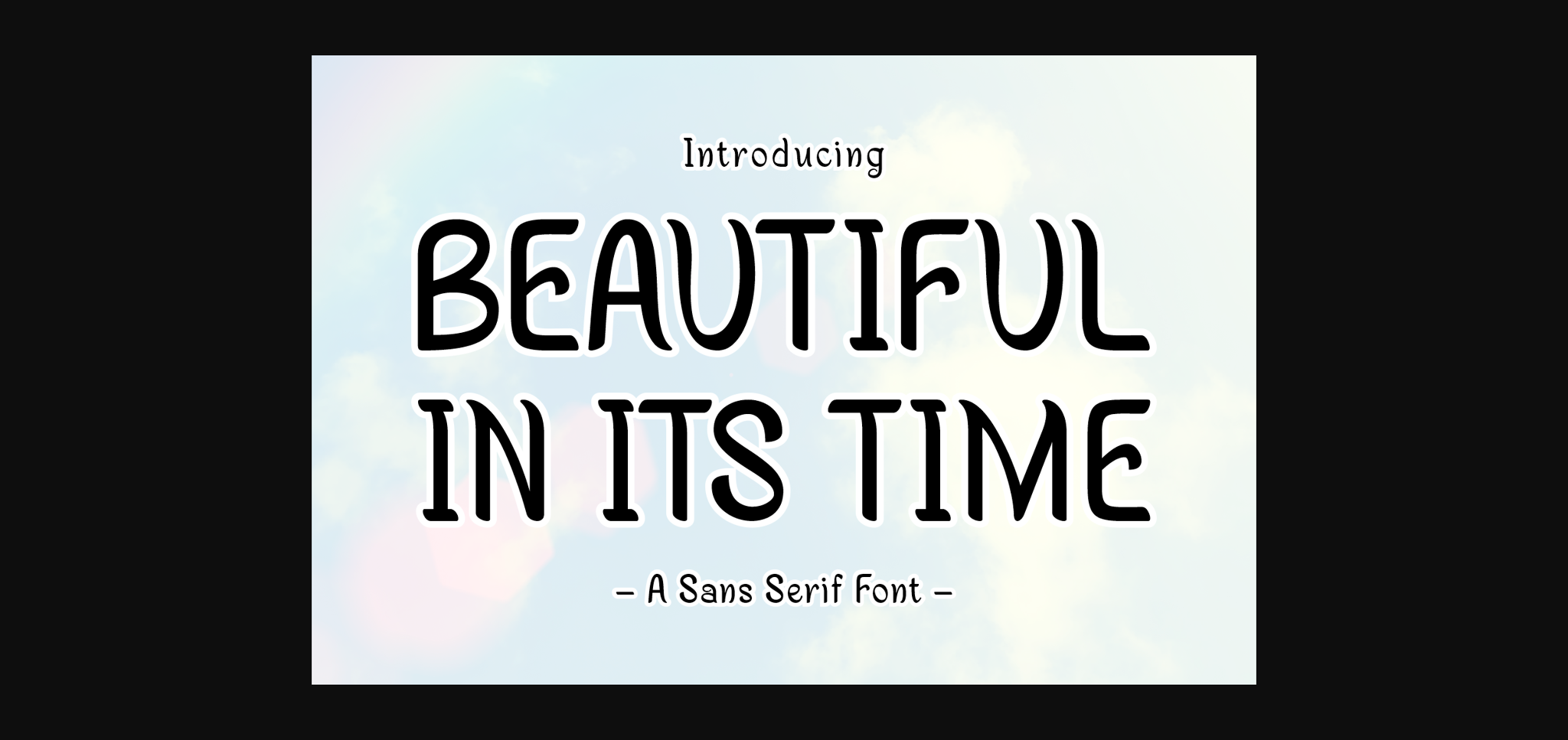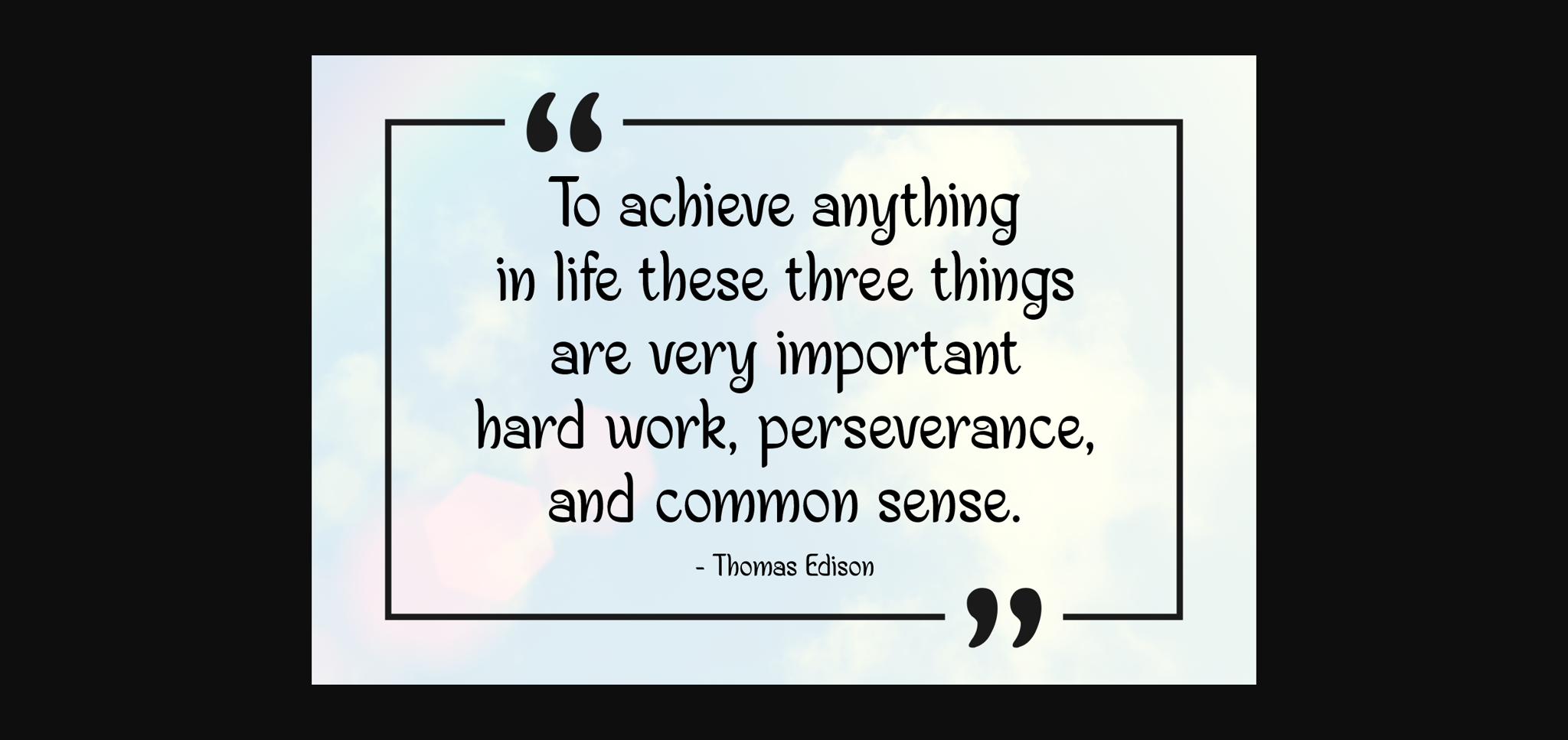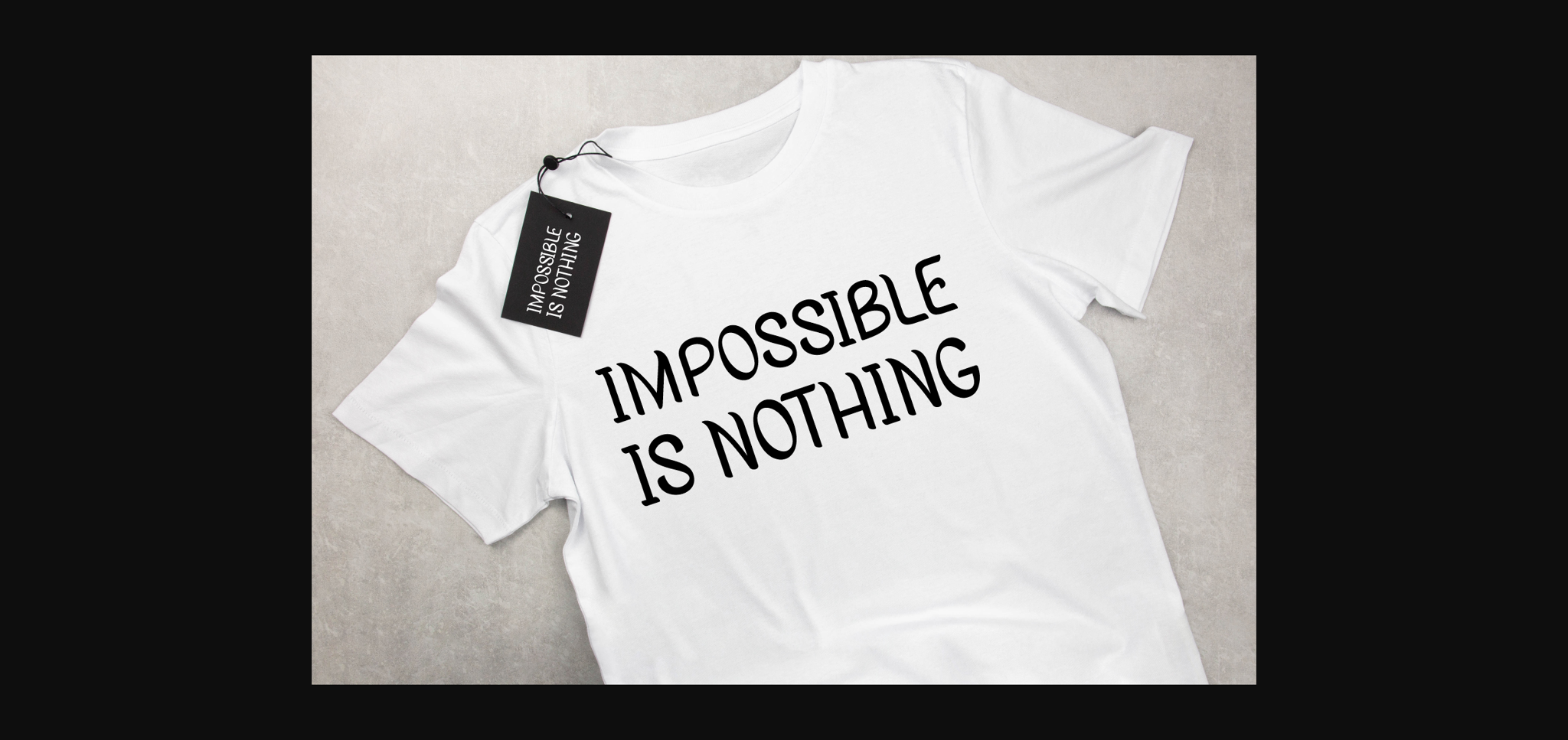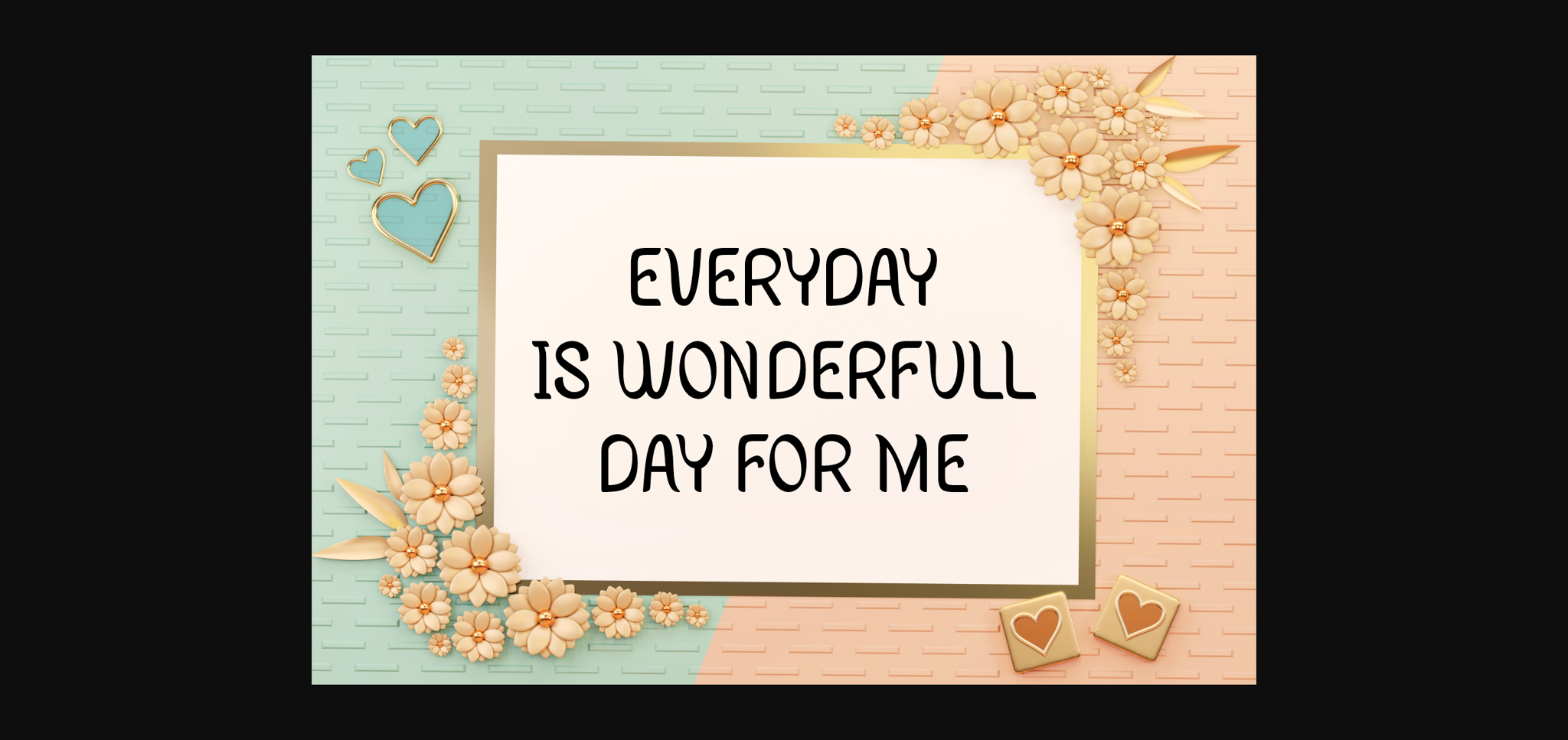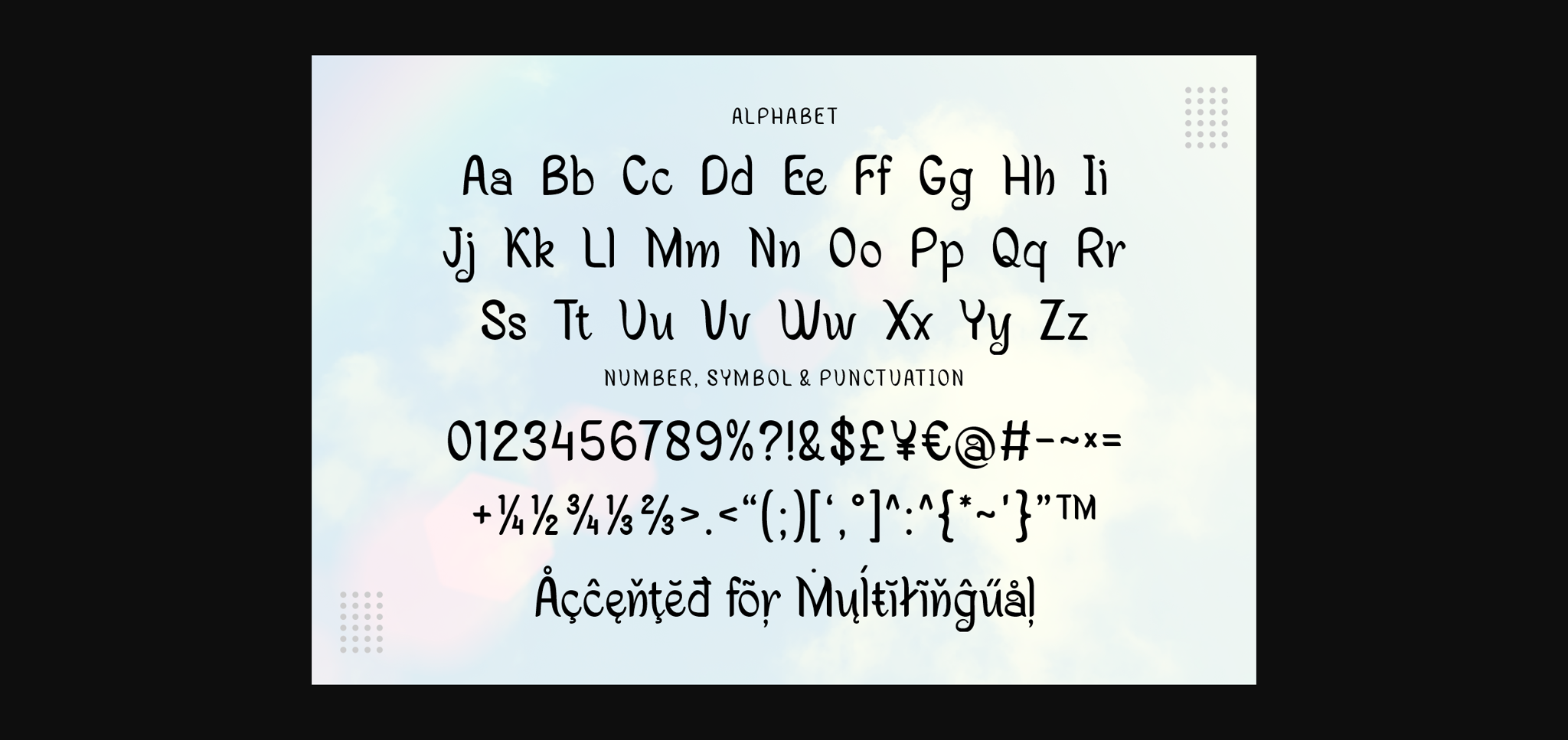
Beautiful In Its Time is a sweet and friendly sans serif font. Its natural and unique style makes it incredibly fitting to a large pool of designs. The only limit is your imagination!